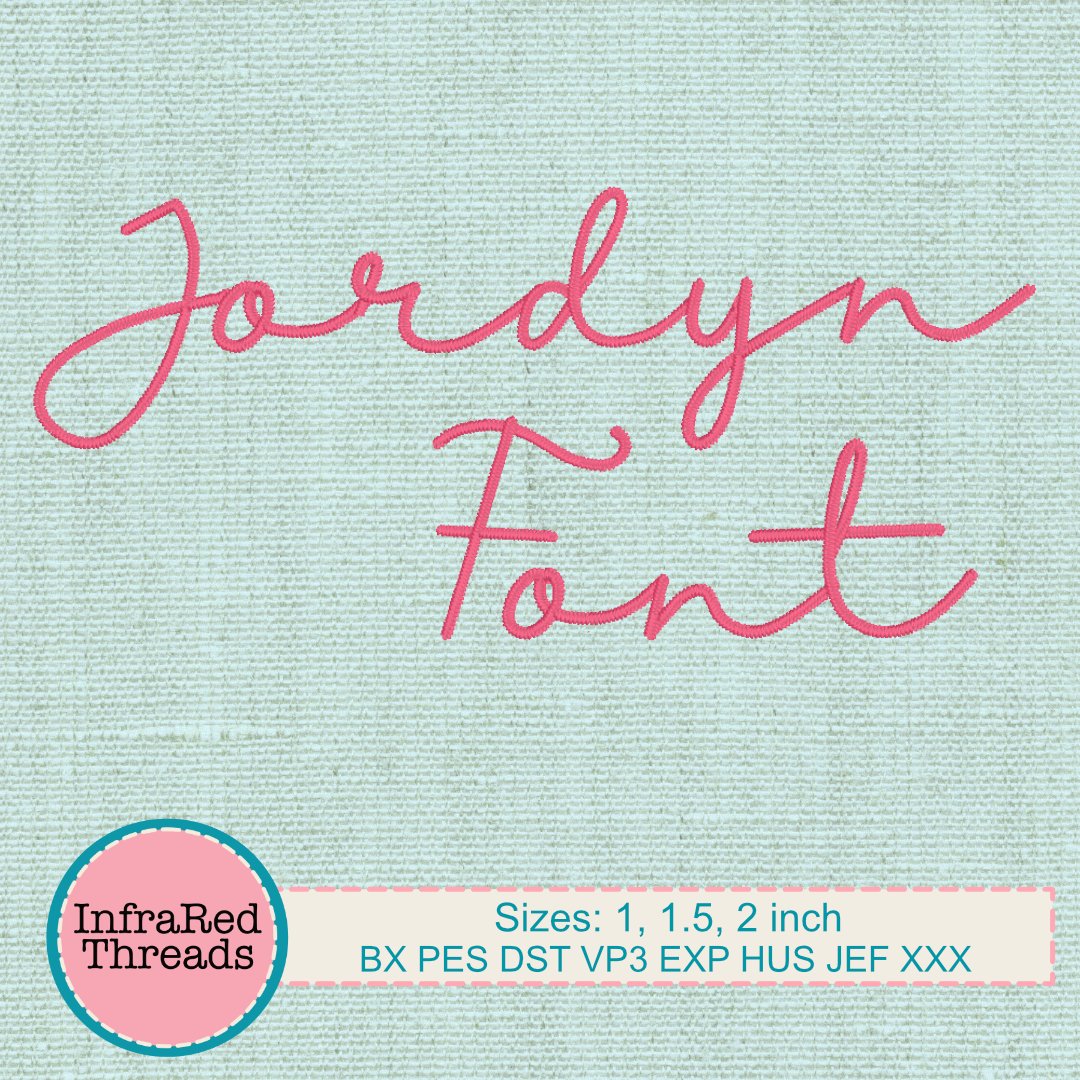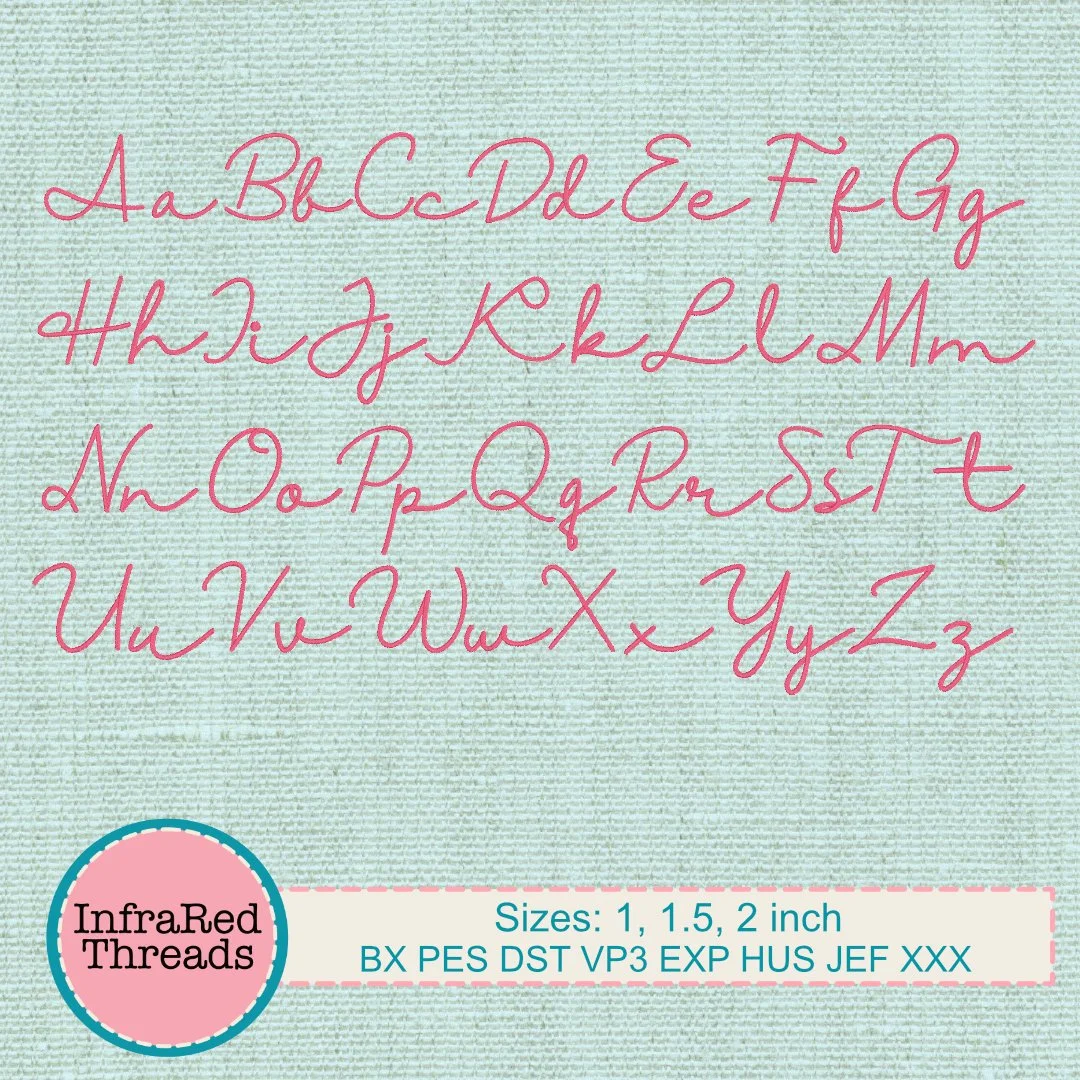
Jordyn Script Embroidery Font – Satin Stitch in 3 Sizes
The Jordyn embroidery font features a clean, modern script with elegant loops and a smooth satin stitch finish. Its graceful curves and connected letter flow make it perfect for names, personalizations, and monogramming. Ideal for crafters, gift-makers, and custom embroidery projects, this font brings a handwritten touch to every stitch.